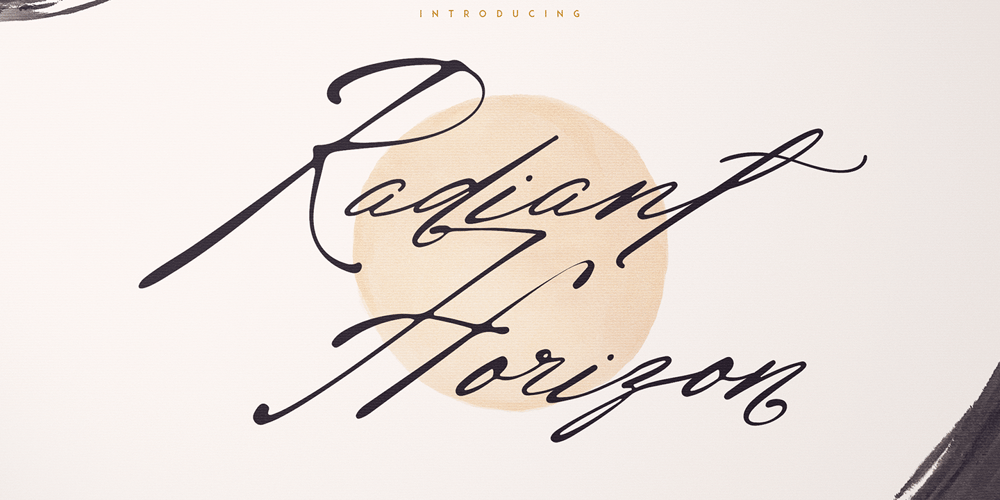
Radiant Horizon
Radiant Horizon font
Radiant Horizon Font Family was designed by Vladimir Fedotov, Plamen Petrov and published by VP Creative Shop. Radiant Horizon contains 1 styles and family package options. Introducing Radian Horizon Handwritten Script – Latin and CyrillicRadiant Horizon is modern and minimal script loaded with 95 languages support, alternate and ligature glyphs.Language Support : Belarusian, Bosnian, Bulgarian, Chechen, Macedonian, Russian, Serbian, Afrikaans, Albanian, Asu, Basque, Bemba, Bena, Breton, Chiga, Colognian, Cornish, Czech, Danish, Dutch, Embu, English, Estronian, Faroese, Filipino, Finnish, French, Friulian, Galician, Ganda, German, Gusii, Hungarian, Indonesian, Irish, Italian, Jola-Fonyi, Kabuverdianu, Kalenjin, Kamba, Kikuyu, Kinyarwadna, Litvian, Lithuanian, Lower Sorbian, Luo, Luxembourish, Luyia, Machame, Makhuwa-Meetoo, Makonde, Malagasy, Maltese, Manx, Meru, Morisyen, North Ndebele, Norwegian Bokm ål, Norwegian Nynorsk, Nyankole, Ormo, Polish, Portuguese, Quechua, Romanian, Romansh, Rombo, Rundi, Rwa, Samburu, Sango, Sangu, Scottish Gaelic, Sena, Shambala, Shona, Slovak, Soga, Somali, Spanish, Swahili, Swedish, Swiss German, Taita, Teso, Turkish, Ukrainian, Upper Sorbian, Uzbek (Latin), Volap ük, Vunjo, Walser, Welsh, Western Frisian, ZuluFEATURES Uppercase, lowercase, numeral, punctuation & Symbol ligature glyphs alternate glyphs Cyrillic support Multilingual support – 95 languages No special software is required to type out the standard characters of the Typeface. Feel free to contact me if you have any questions!Mock ups and backgrounds used are not included.Thank you! Enjoy!